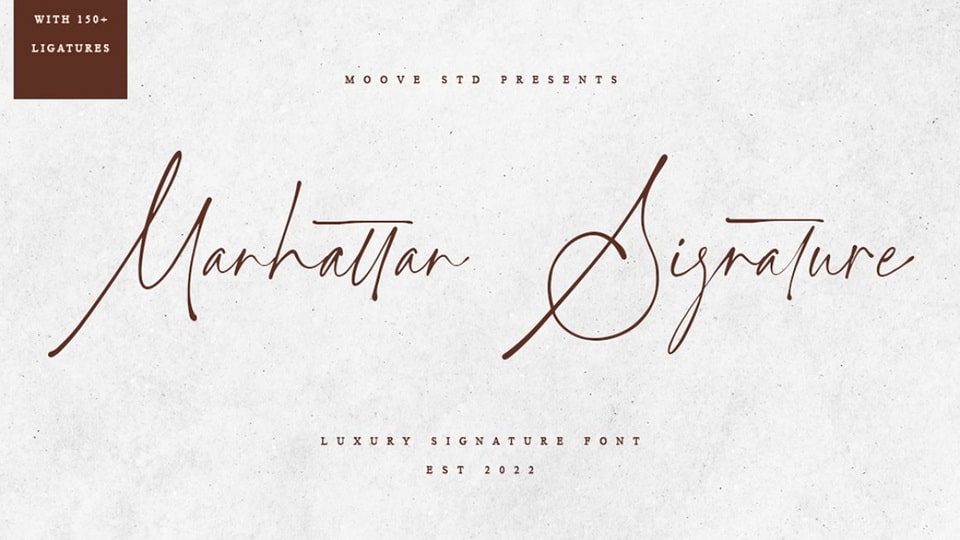
Download Manhattan Signature font, a stylish and luxurious handwritten typeface. Use this font in any of your brilliant ideas like invitations, mockups, logos, etc., and every design will definitely look elegant and elevated
Designer: Moove Studio